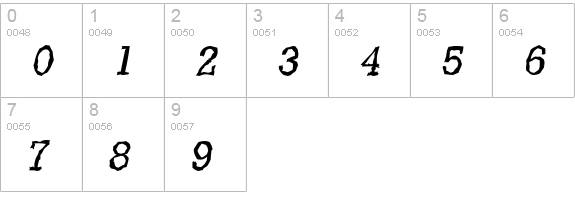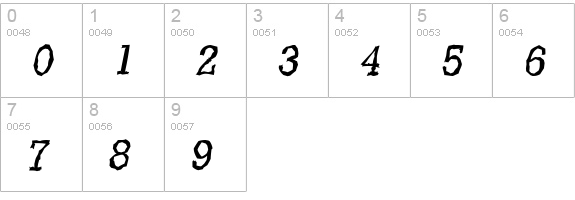
StaffordRandom-Italic Font Details
StaffordRandom-Italic is a distinctive, italic variant in the StaffordRandom typeface family \xE2\x80\x94 well suited to design and typography projects.
StaffordRandom-Italic is a stylish and elegant font that exudes a sense of creativity and sophistication. Its unique italicized design adds a touch of modernity to any project, making it perfect for a variety of creative applications. The flowing curves and sleek lines of StaffordRandom-Italic create a sense of movement and energy, capturing the eye and drawing the reader in. This versatile font is ideal for branding, advertising, packaging, invitations, and more. Whether you're looking to add a touch of elegance to your design or make a bold statement, StaffordRandom-Italic is sure to leave a lasting impression. Best of all, StaffordRandom-Italic is available for free download at FontsMarket.com. Don't miss out on the opportunity to enhance your projects with this stunning font – download StaffordRandom-Italic today and let your creativity soar!